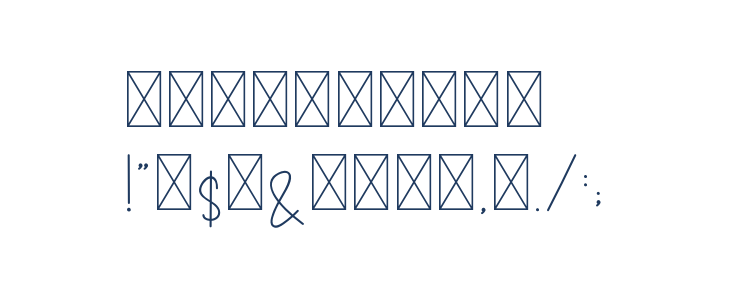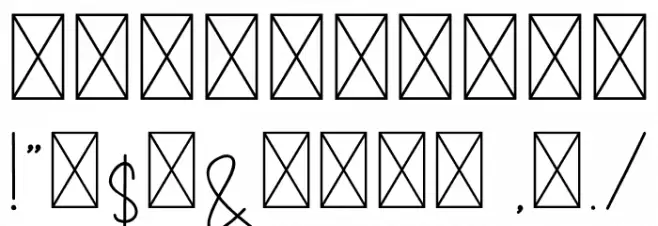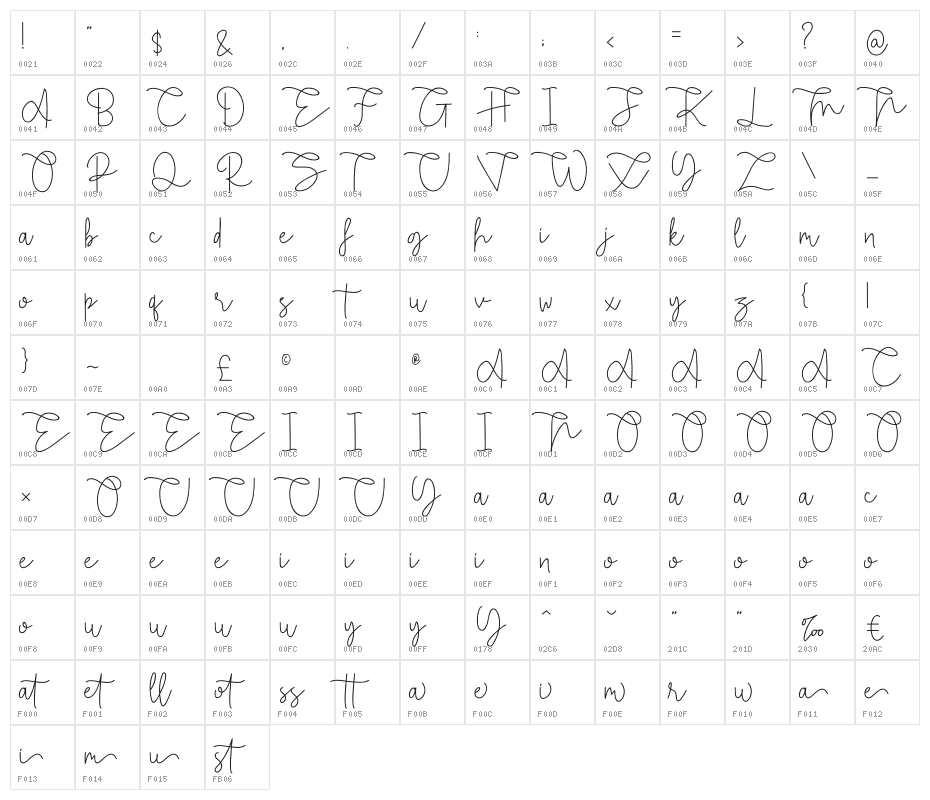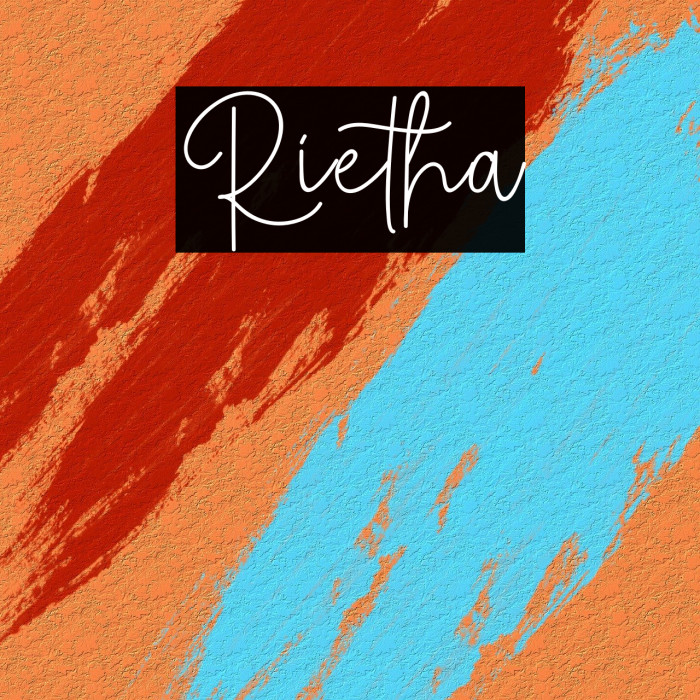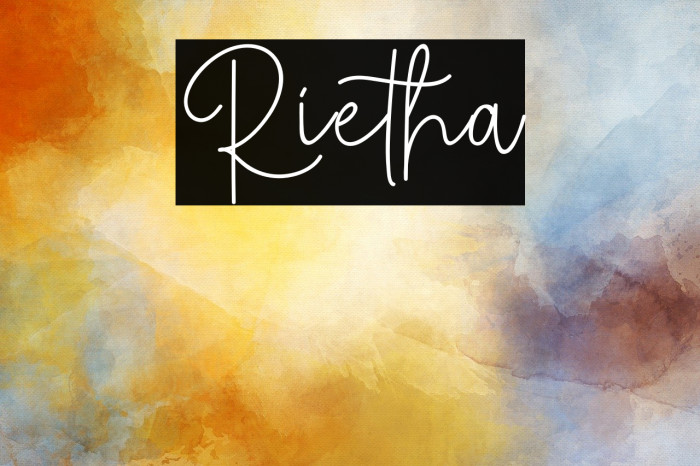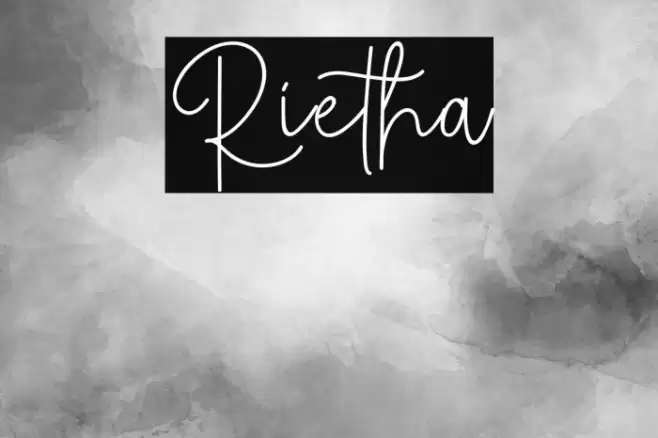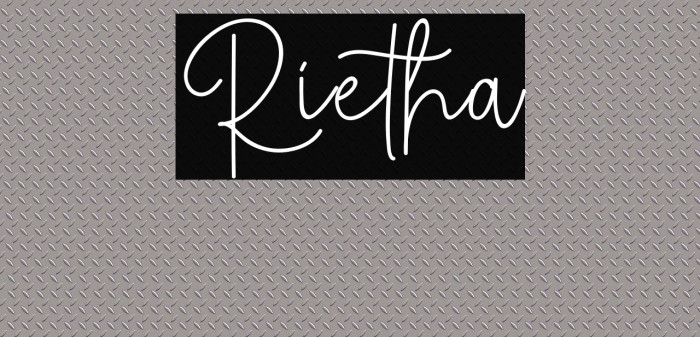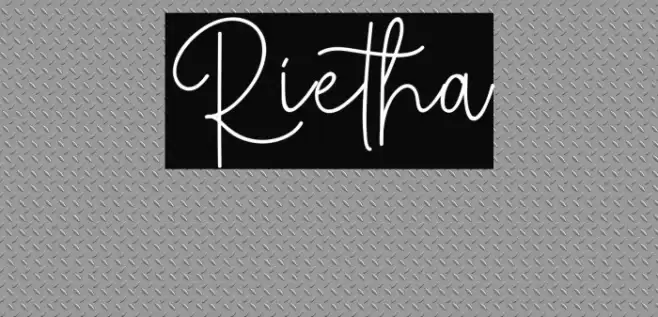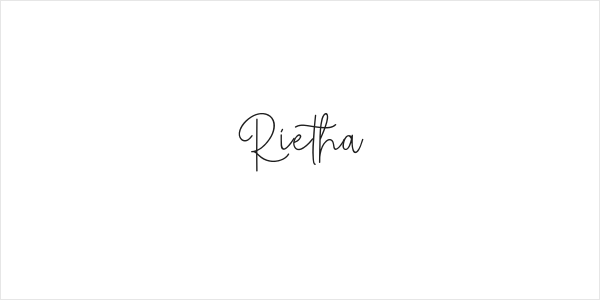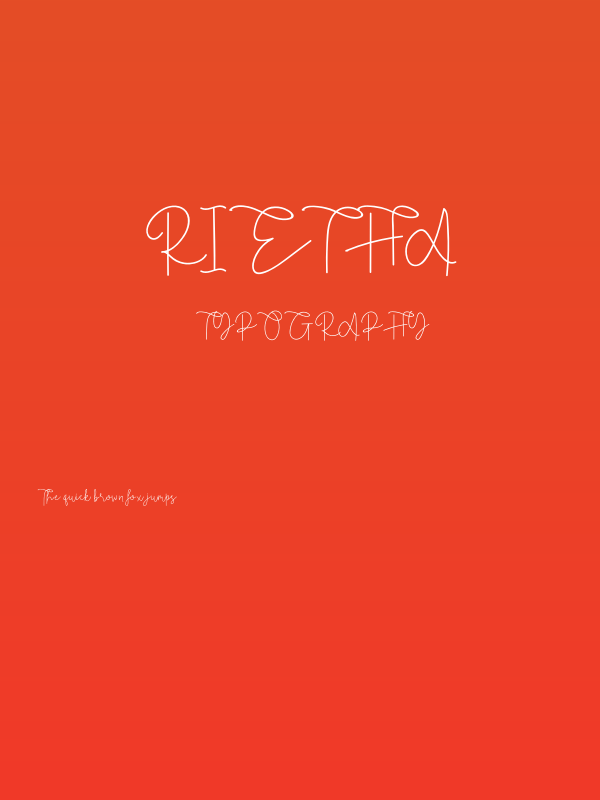
Rietha Font
Rietha Description
This font features a playful and whimsical handwritten style, characterized by its flowing, cursive letters. The uppercase letters are elegantly looped and connected, giving a sense of fluidity and movement. The lowercase letters maintain a consistent style, with some letters extending below the baseline, adding to the font's dynamic appearance. The strokes are smooth and rounded, contributing to a friendly and approachable feel. This font is versatile, suitable for a variety of creative projects where a personal touch is desired.
| Proposed Projects | Ideal for greeting cards, invitations, personal branding, and creative projects that require a personal touch. |